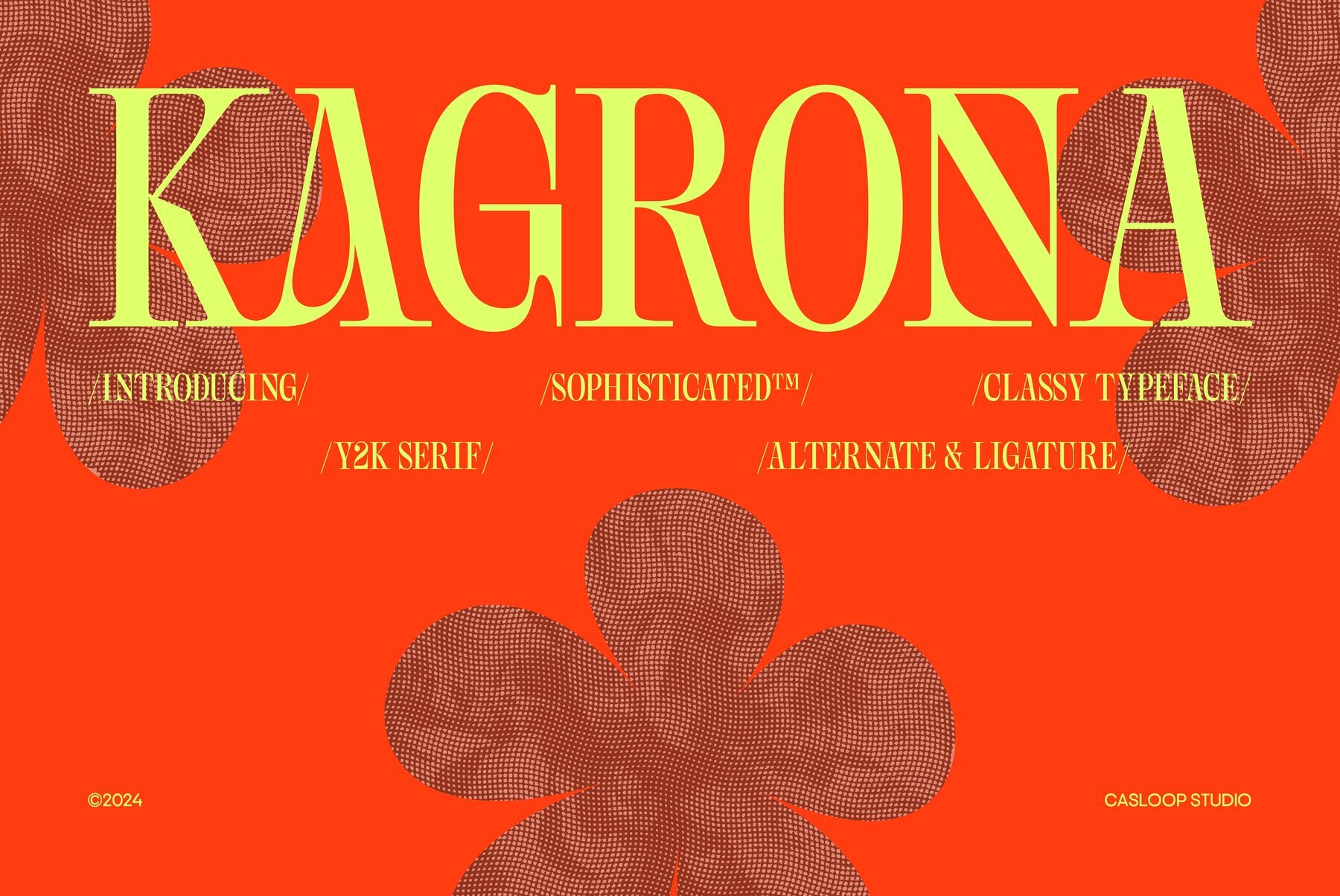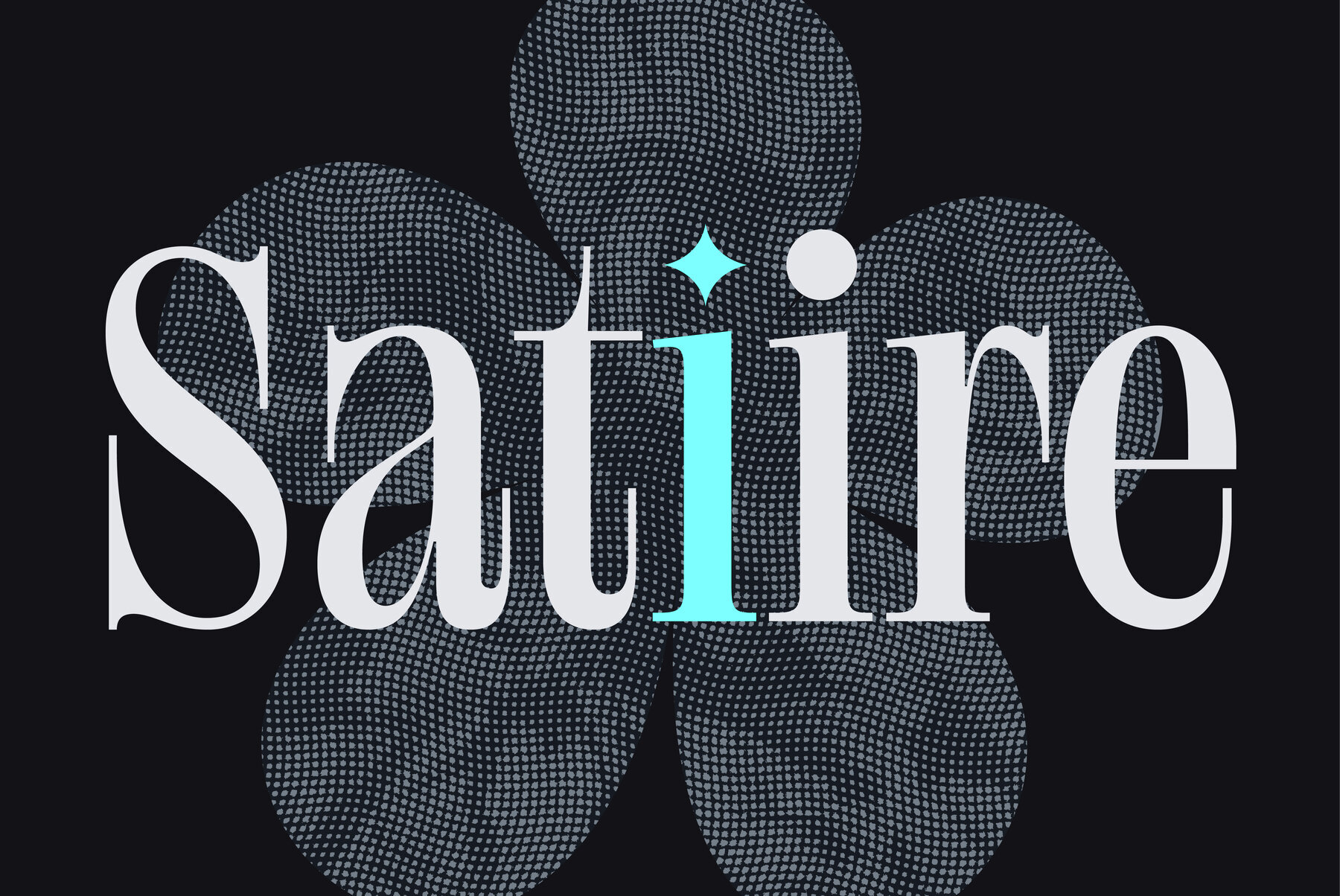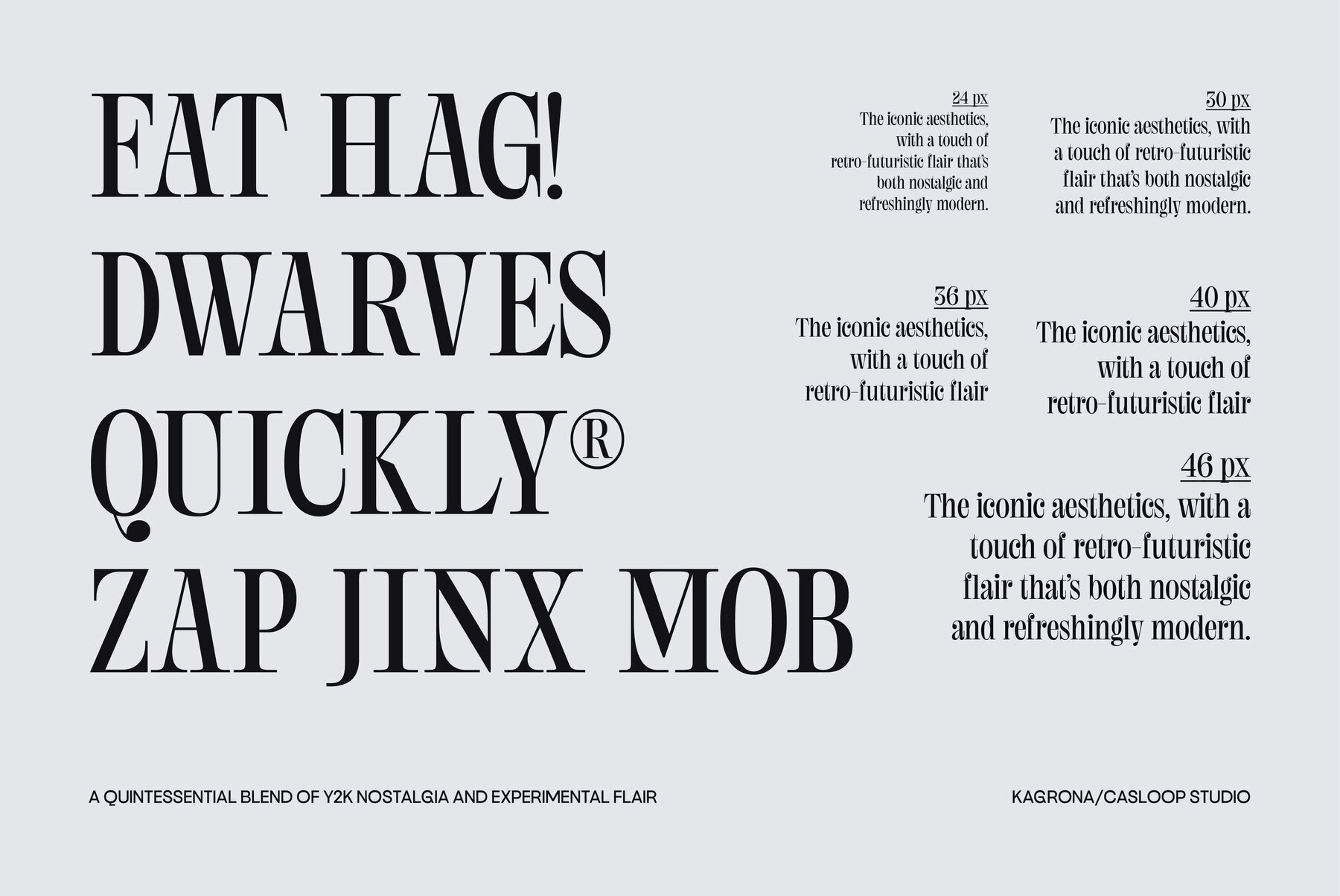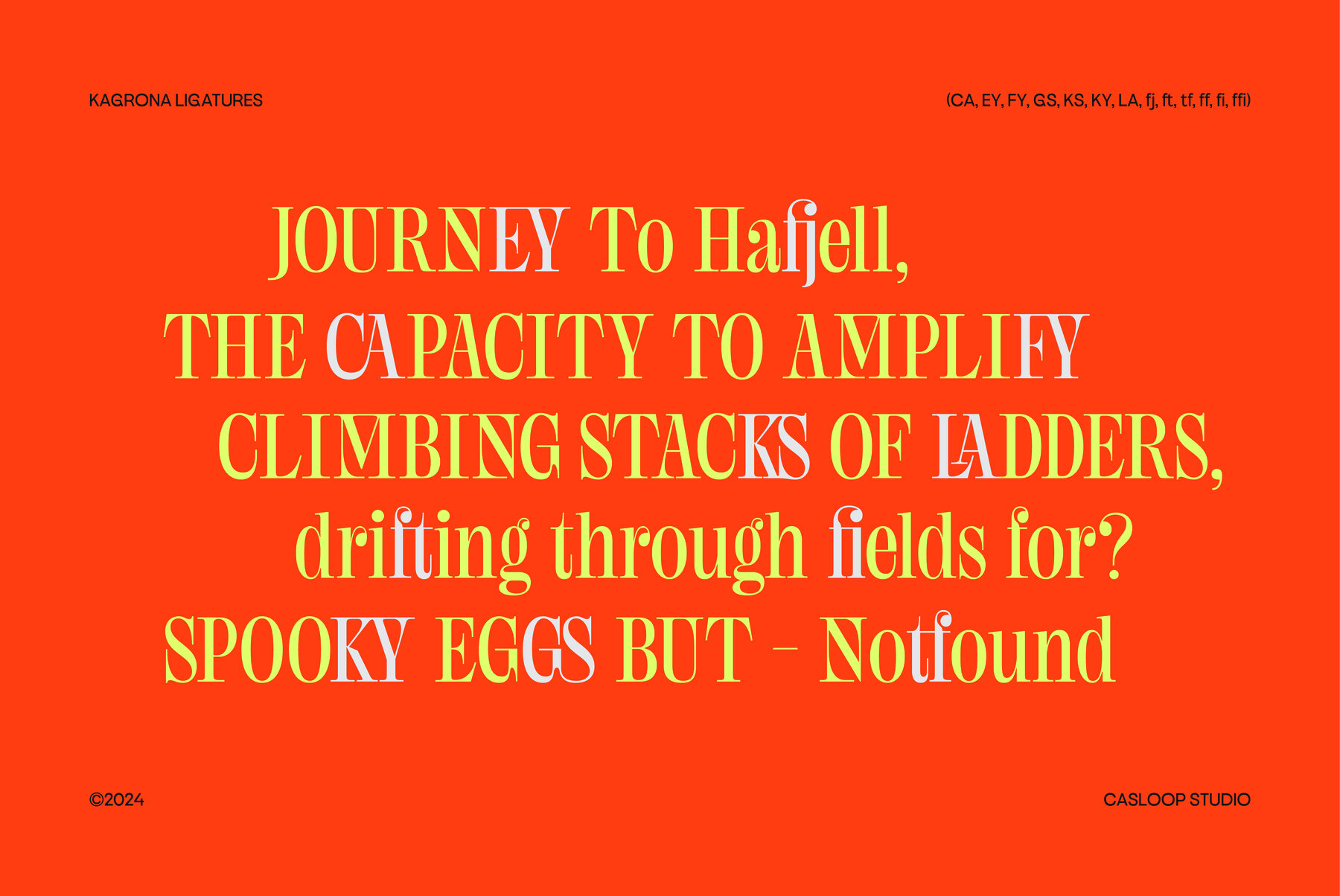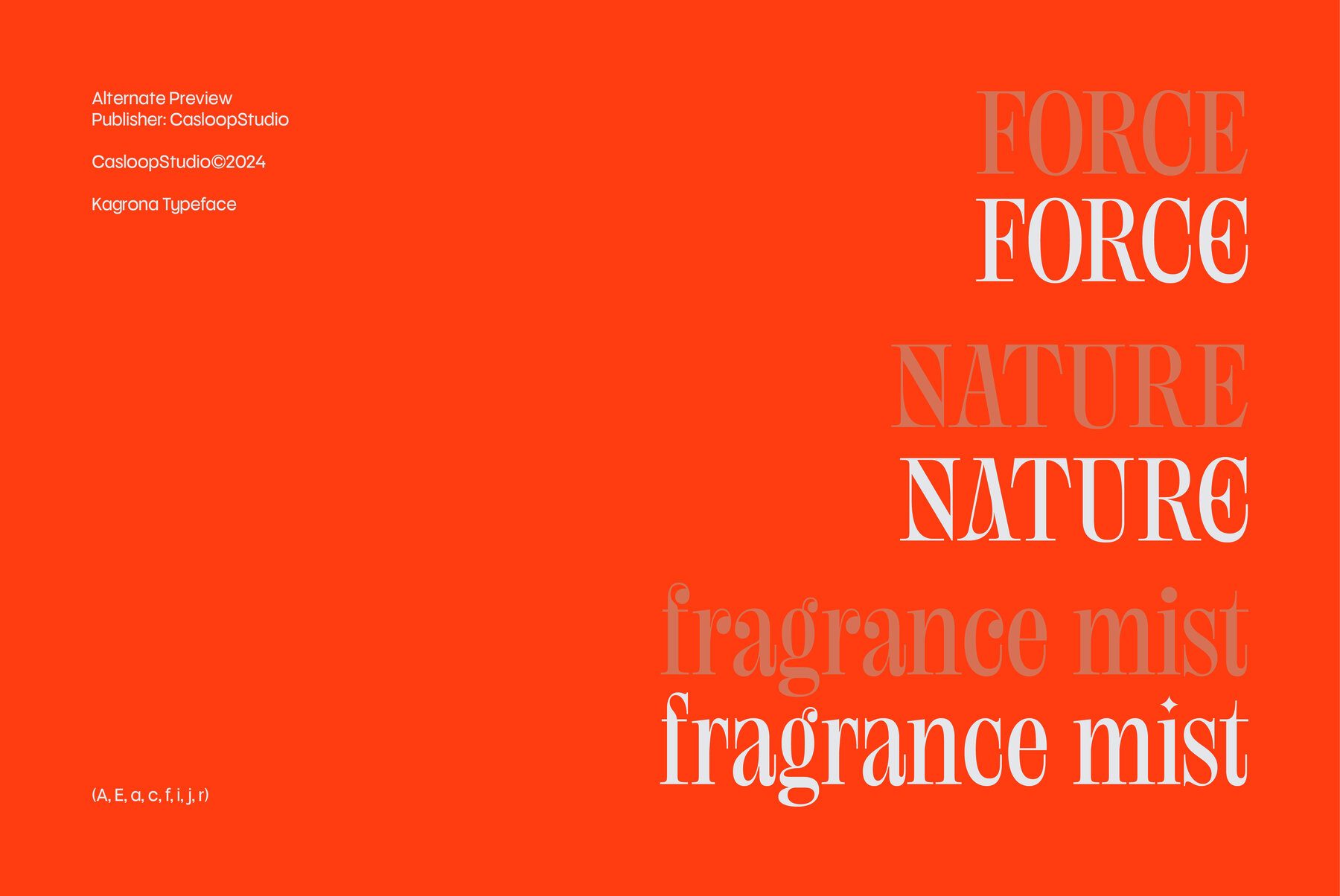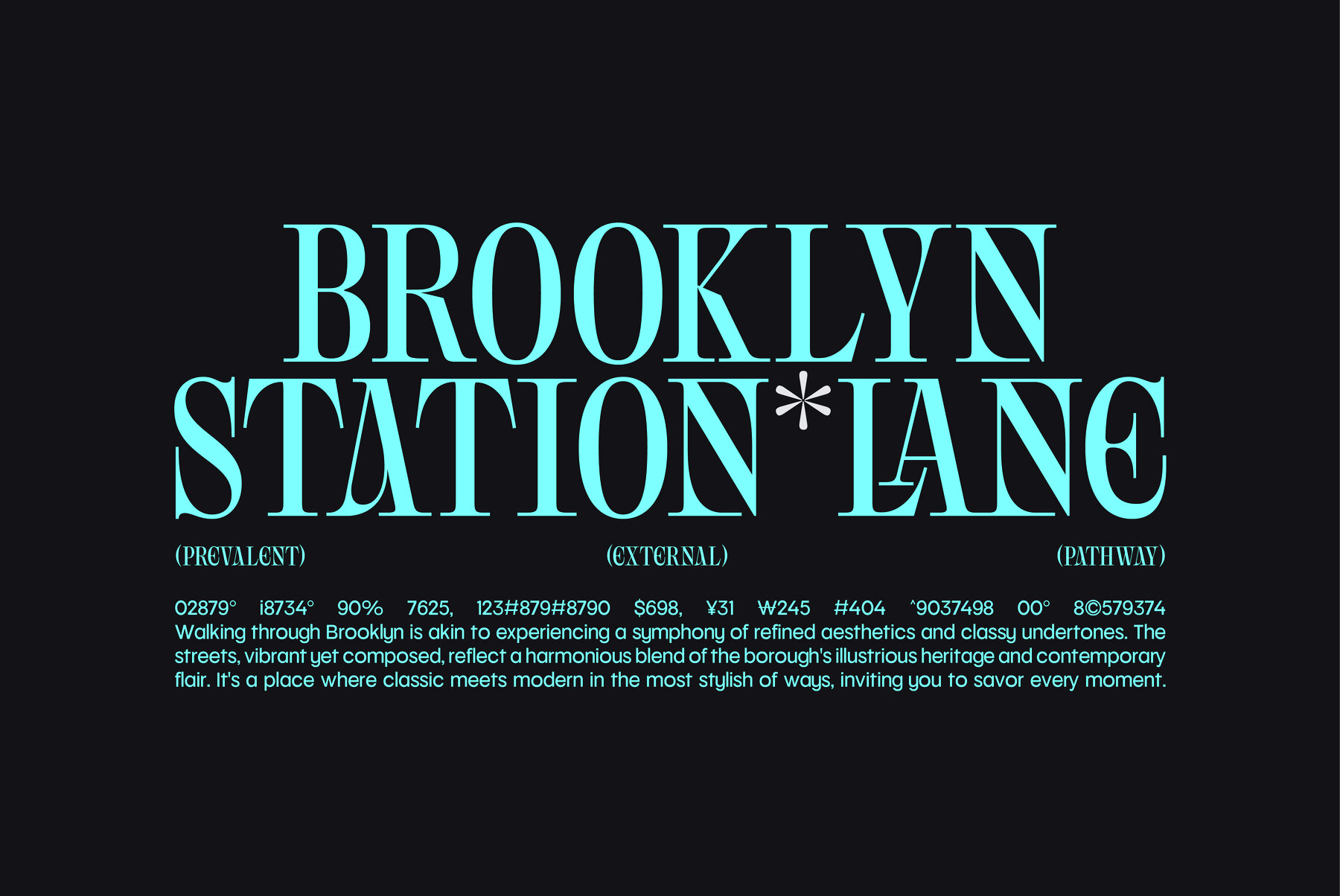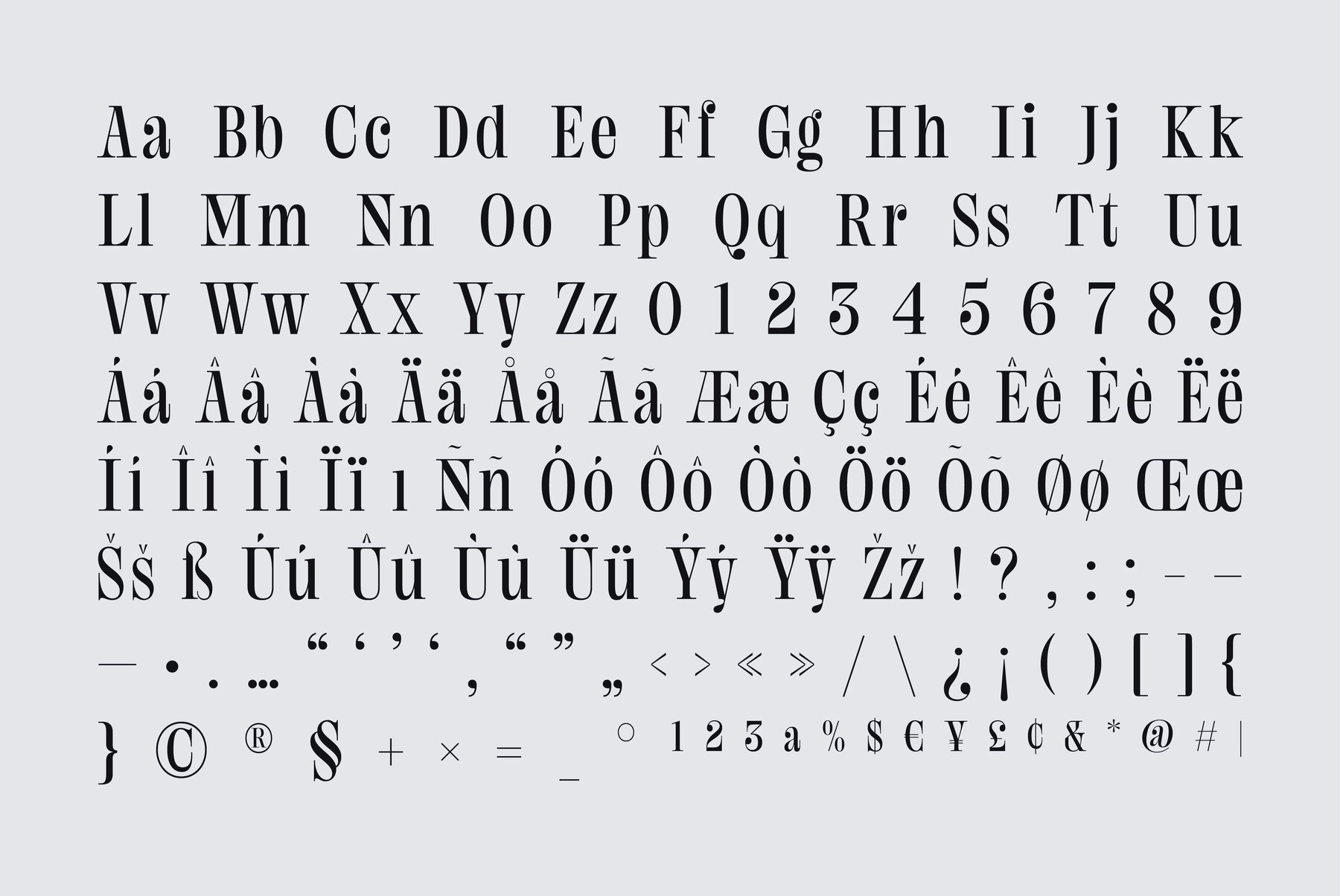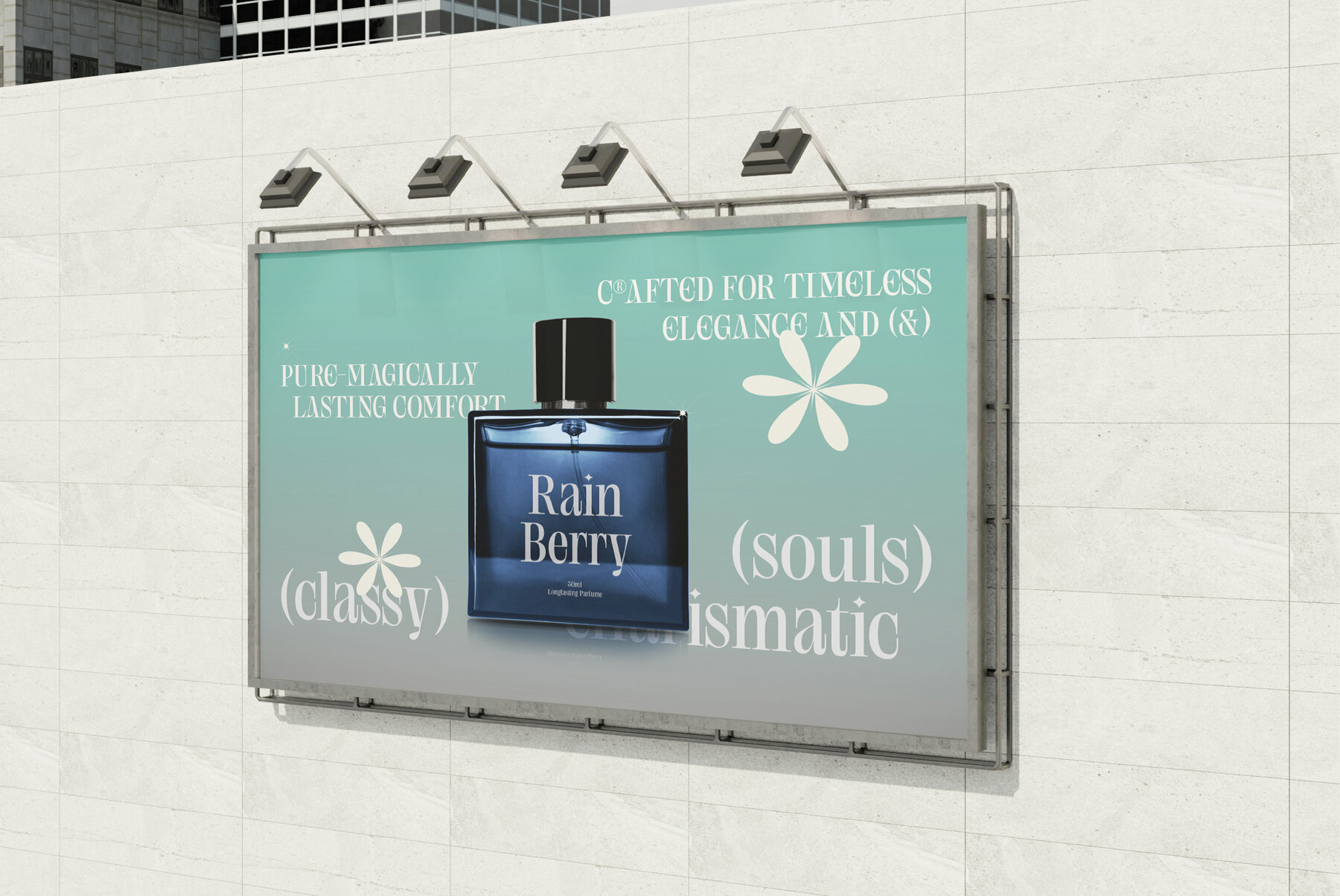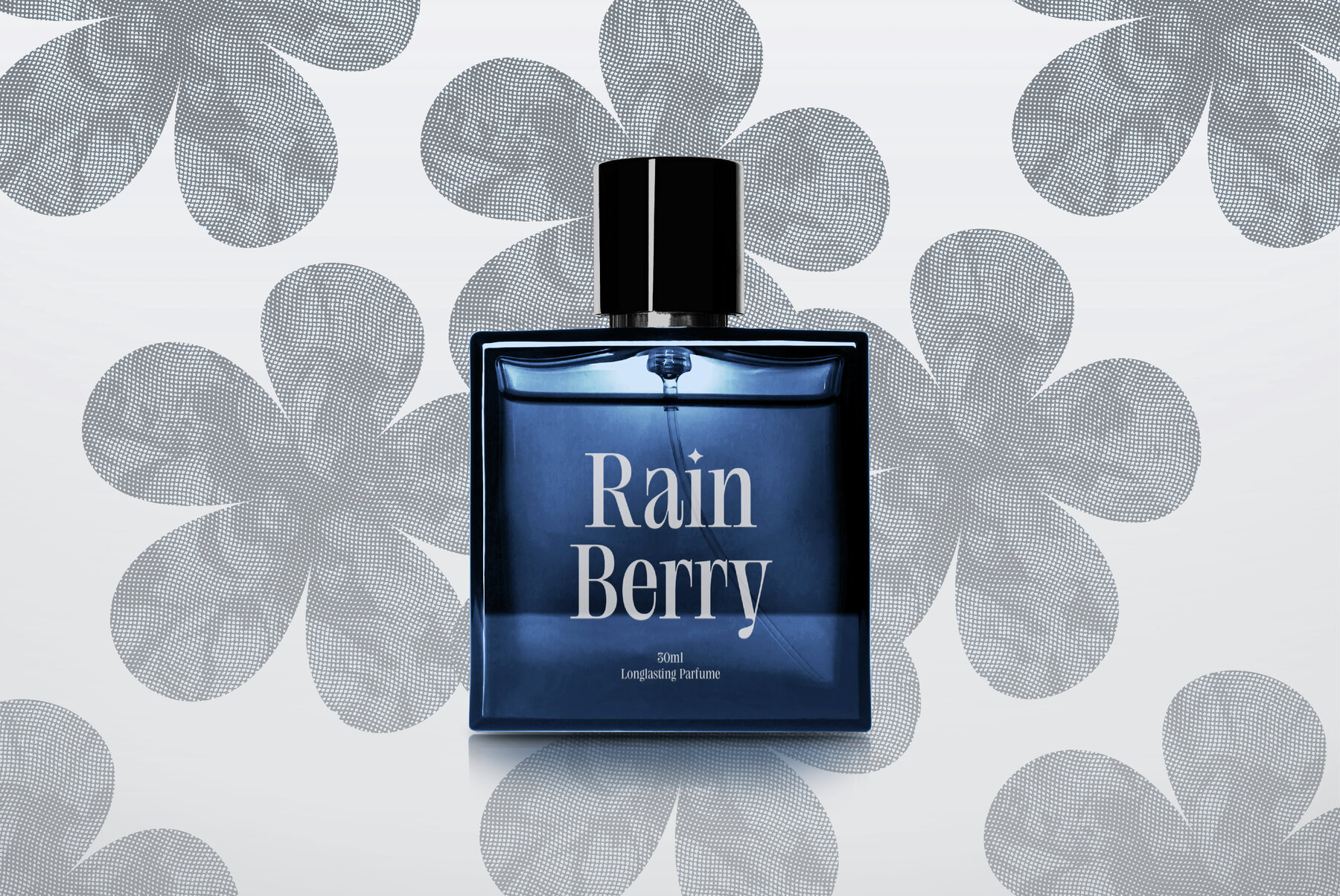
Kagrona Font
Kagrona
Kagrona is a display serif font that artfully merges the retro charm of Y2K aesthetics with contemporary sophistication. Its unique experimental design makes it suitable for both classic and modern applications without dilution of its core appeal. Appreciated for its nostalgic yet elegant allure, Kagrona is an excellent choice for creating striking posters, refined editorial layouts, and upscale branding materials. Its versatility extends to logos, digital media, and website designs, infusing a vintage vibe into various projects. Supported Languages: Bosnian, Catalan, Czech, Malayalam, Danish, German, English, Spanish, Estonian, Finnish, French, Irish, Croatian, Hungarian, Icelandic, Italian, Lithuanian, Latvian, Maltese, Dutch, Norwegian, Polish, Portuguese, Romanian, Slovak, Slovenian, Albanian, Swedish, Turkish.Kagrona: Nostalgic Yet Modern Display Serif